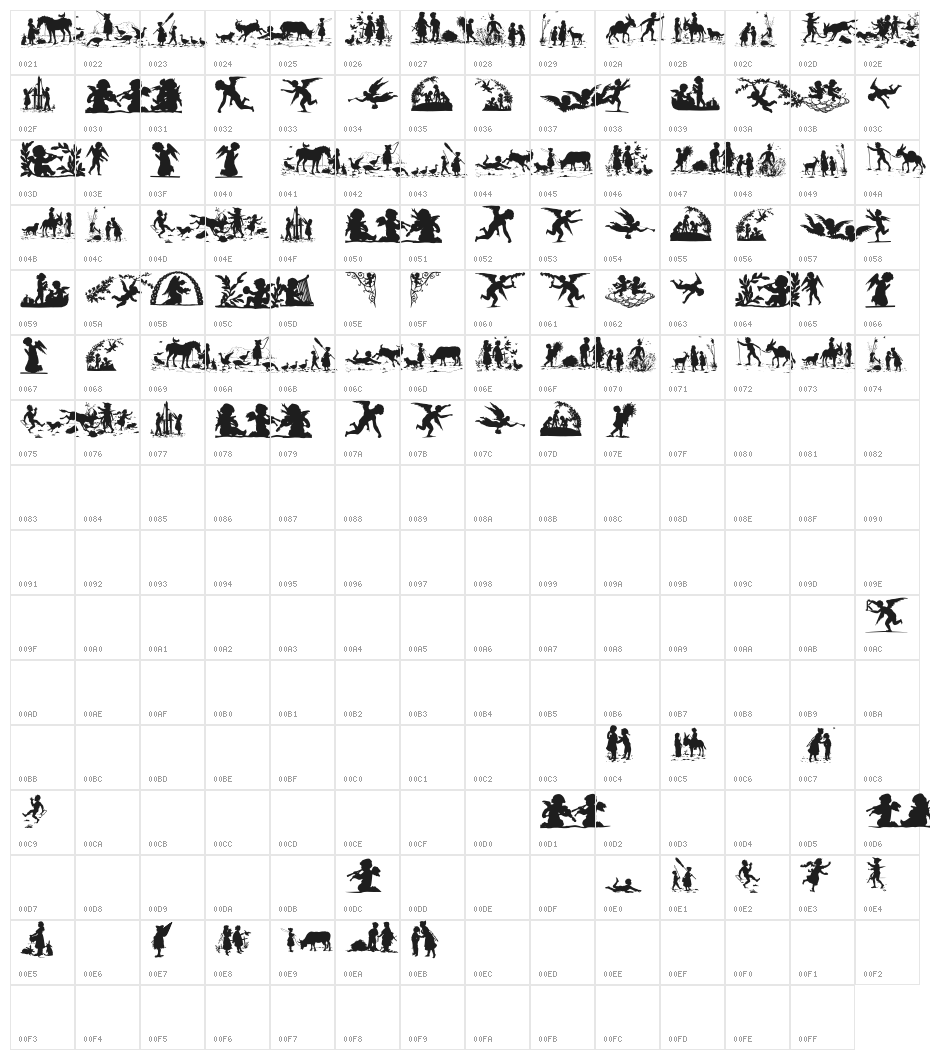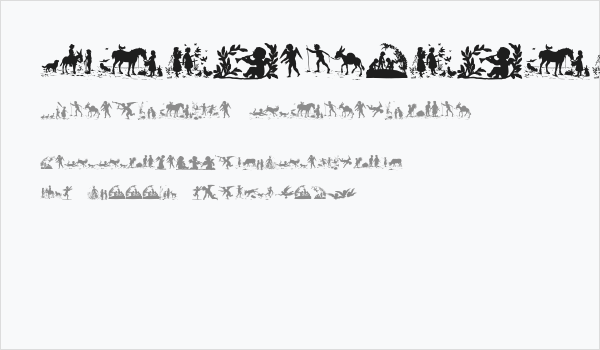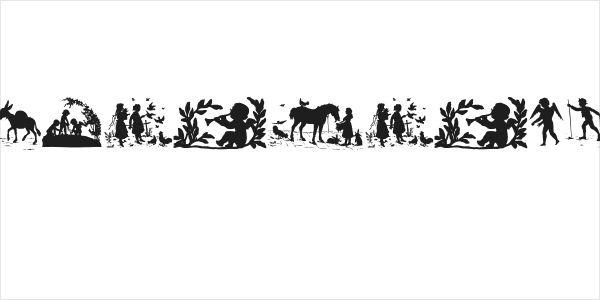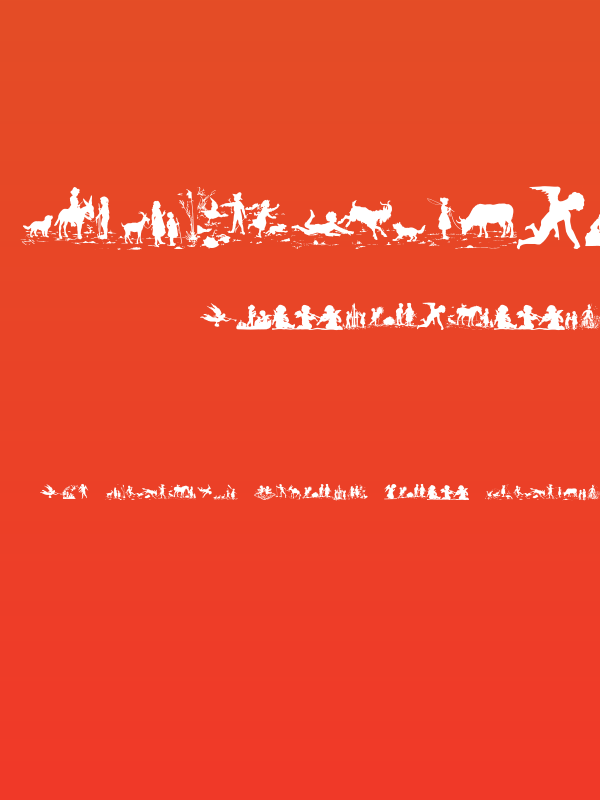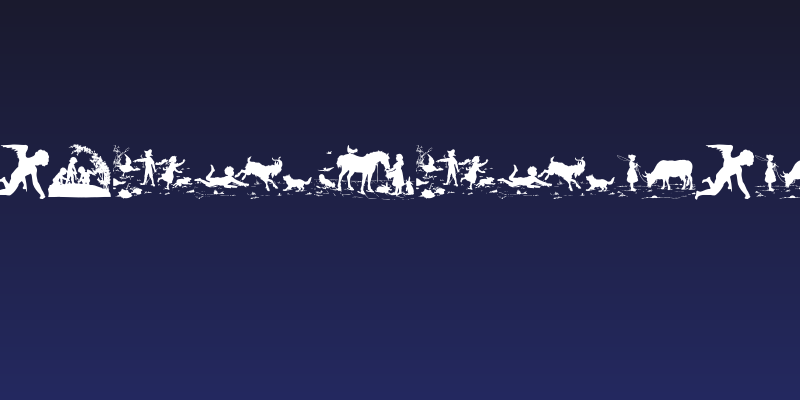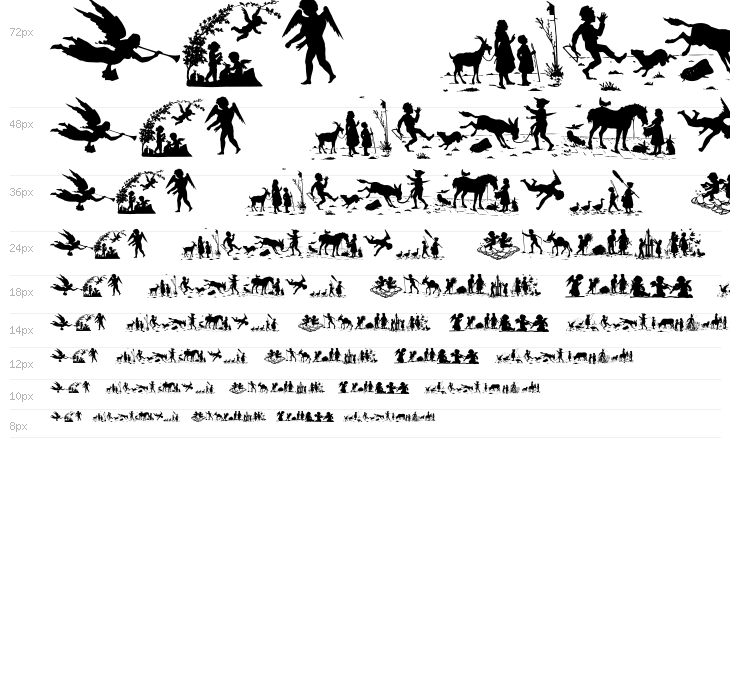
KinderUndAndereEngel Font
KinderUndAndereEngel Description
A decorative silhouette font featuring playful children, angels, and animals in various whimsical scenes. Each character is represented by a unique, detailed black silhouette illustration, evoking a vintage, storybook feel.
| Overall Style | Vintage, Decorative |
| Use Case | Decorative elements, Headlines, Themed graphics |
| Proposed Projects | Children's book covers, invitations, greeting cards, decorative borders, vintage-themed designs. |